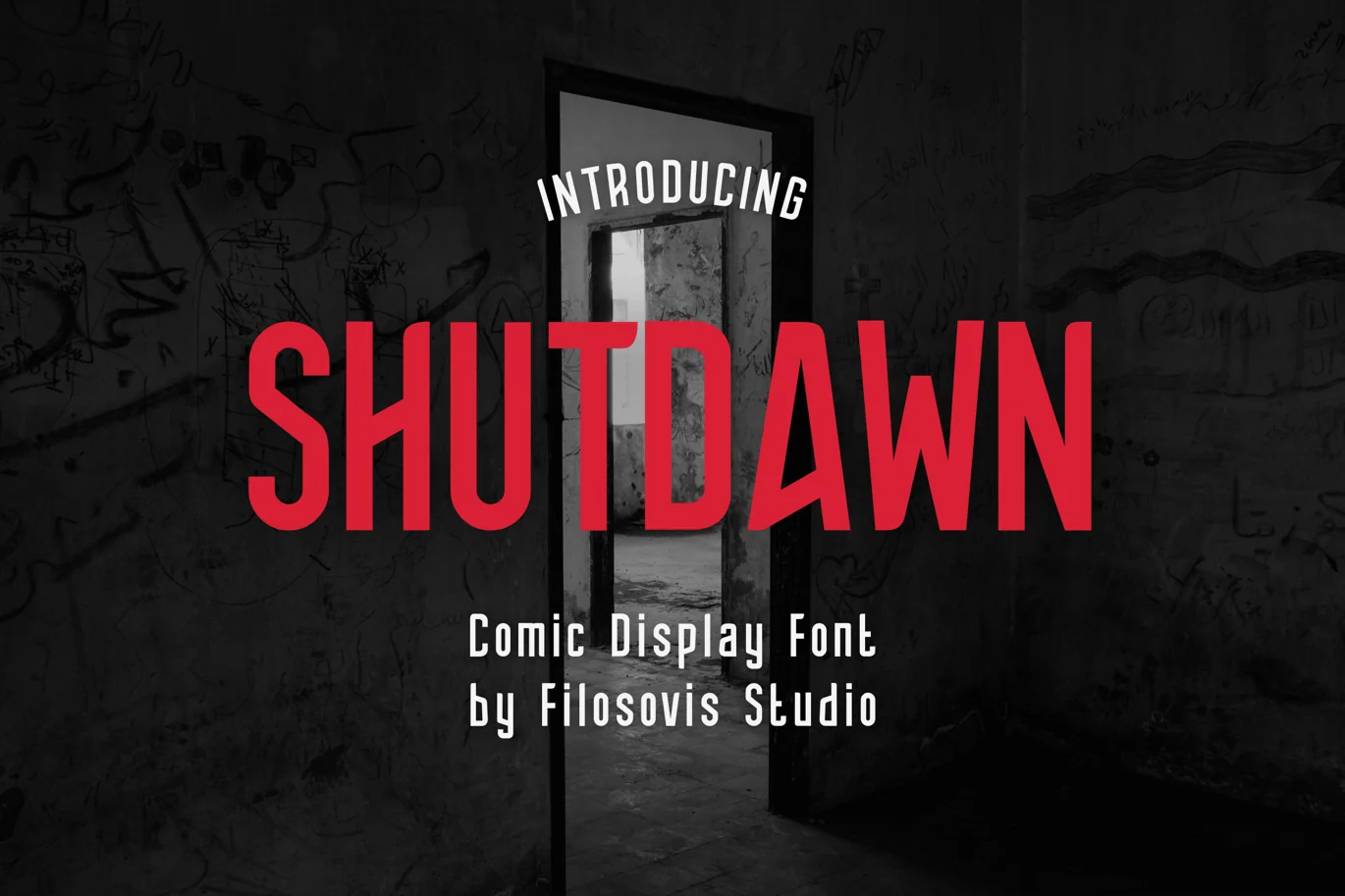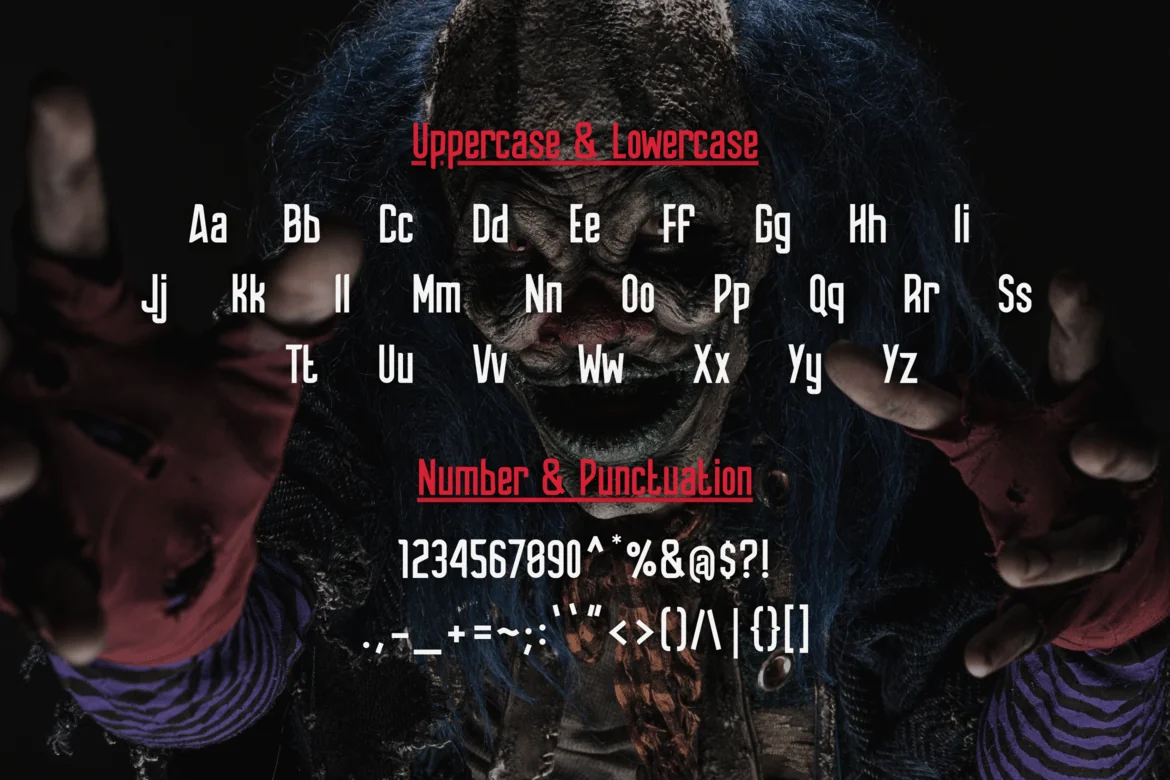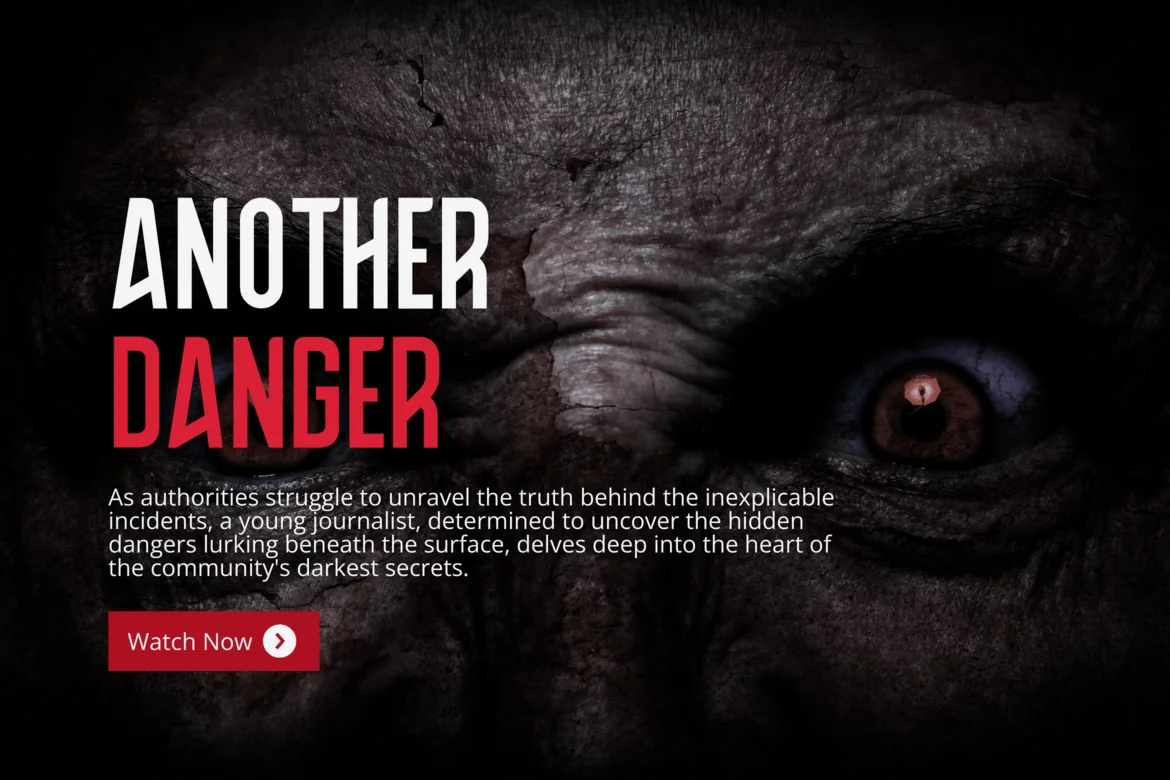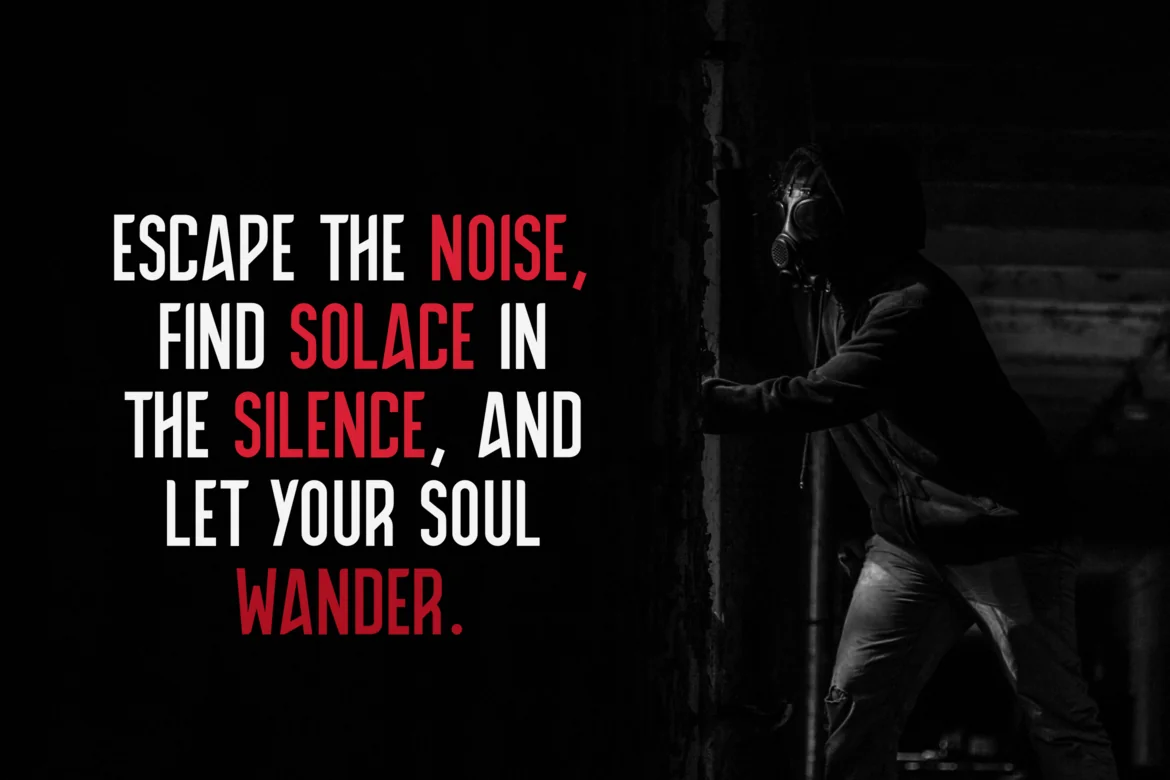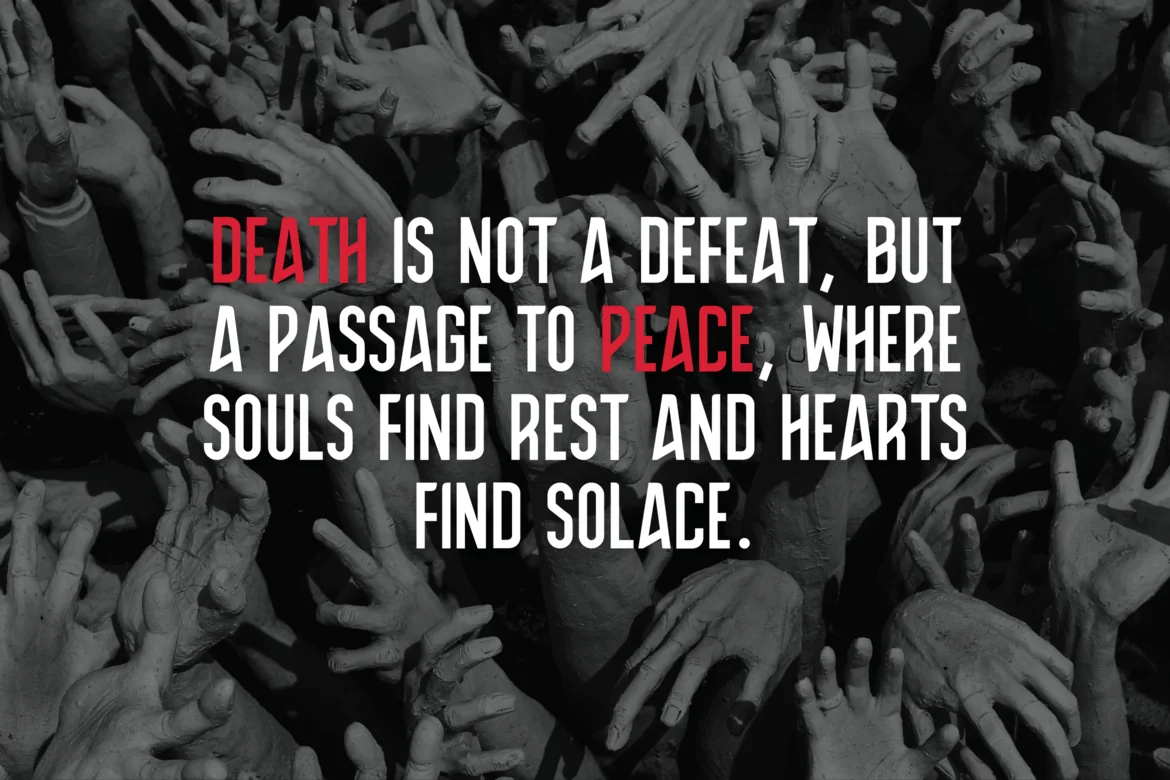
Shutdawn | Comic Display Font
Description
For your creative project, use the Shutdawn-themed Comic Display Font. Comic Display Font is appropriate for every kind of design you produce, including greeting cards, posters, logos, and branding.
- Uppercase Characters
- Lowercase Characters
- Numeric & Symbol